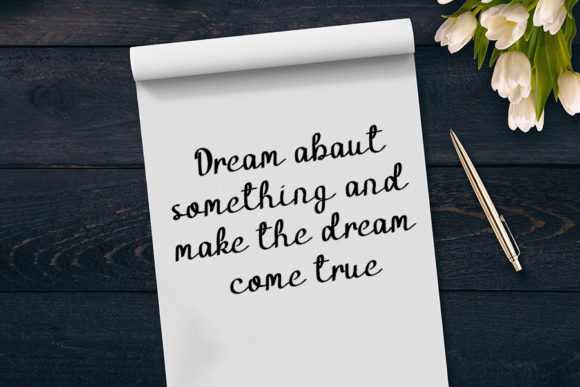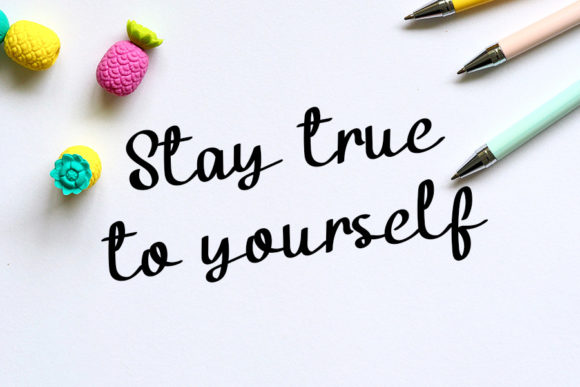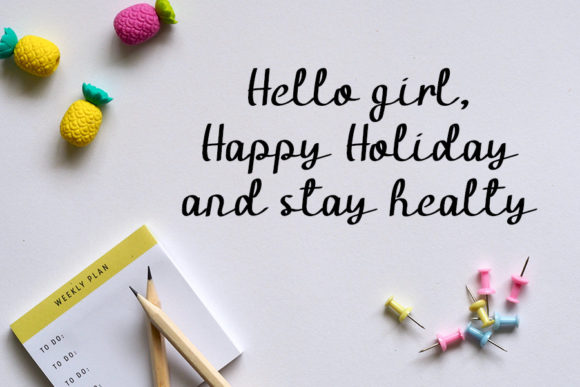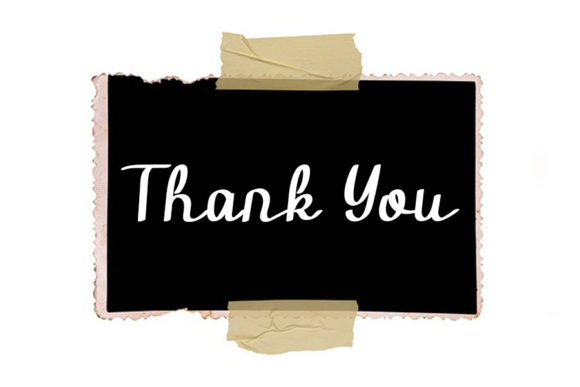
Dream Girl Font: Elevate Your Designs with Elegance and Flair
Are you a designer or crafter looking for a font that embodies elegance, delicacy, and a touch of whimsy? Look no further than the Dream Girl Font. This beautiful, handwritten font is designed to add a touch of sophistication and charm to any design project, making it perfect for a wide range of creative endeavors.
The Beauty of Dream Girl Font
Dream Girl Font is a delicate, elegant, and flowing handwritten font that is sure to capture the hearts of designers and crafters alike. Its beautiful and well-balanced characters make it an ideal choice for a variety of design projects, from wedding invitations and branding materials to digital graphics and craft projects.
One of the standout features of Dream Girl Font is its versatility. Its elegant and flowing script makes it perfect for designs that require a touch of sophistication, while its delicate and whimsical feel also makes it suitable for more playful and creative projects.
What Makes Dream Girl Font So Special?
So, what sets Dream Girl Font apart from other fonts? Here are just a few reasons why this font is a must-have for designers and crafters:
- Delicate and Elegant: Dream Girl Font features a delicate and elegant script that is perfect for designs that require a touch of sophistication.
- Well-Balanced Characters: The font’s well-balanced characters ensure that it is easy to read and looks great in a variety of design applications.
- Versatile: Dream Girl Font is versatile enough to be used in a wide range of design projects, from wedding invitations and branding materials to digital graphics and craft projects.
How to Use Dream Girl Font in Your Designs
Dream Girl Font is a versatile font that can be used in a variety of design projects. Here are just a few ideas to get you started:
- Wedding Invitations: Add a touch of elegance and sophistication to your wedding invitations with Dream Girl Font.
- Branding Materials: Use Dream Girl Font to create beautiful and professional-looking branding materials, such as logos, business cards, and letterheads.
- Digital Graphics: Add a touch of whimsy and elegance to your digital graphics, such as social media graphics, blog posts, and email newsletters.
- Craft Projects: Use Dream Girl Font to add a personal touch to your craft projects, such as handmade cards, scrapbooking, and DIY home decor.
Tips for Getting the Most Out of Dream Girl Font
Here are a few tips for getting the most out of Dream Girl Font:
- Experiment with Different Sizes: Dream Girl Font looks great in a variety of sizes, so don’t be afraid to experiment to find the perfect size for your design.
- Pair it with Other Fonts: Dream Girl Font pairs well with a variety of other fonts, so try pairing it with different fonts to create a unique and interesting design.
- Use it in Combination with Images: Dream Girl Font looks great in combination with images, so try using it to add a touch of elegance and sophistication to your designs.
Dream Girl Font is a beautiful and versatile font that is perfect for designers and crafters looking to add a touch of elegance and sophistication to their designs. With its delicate and flowing script, well-balanced characters, and versatility, it’s no wonder that Dream Girl Font is a popular choice for a wide range of design projects. Whether you’re creating wedding invitations, branding materials, digital graphics, or craft projects, Dream Girl Font is sure to make your designs come alive!